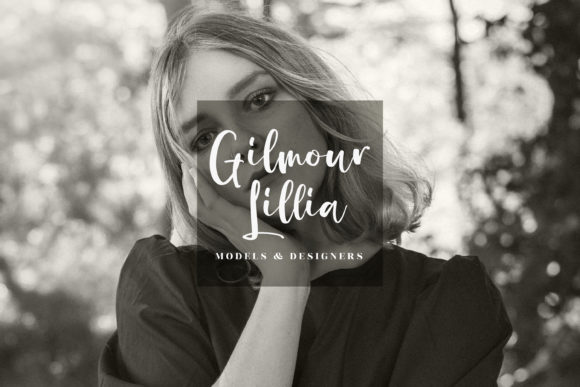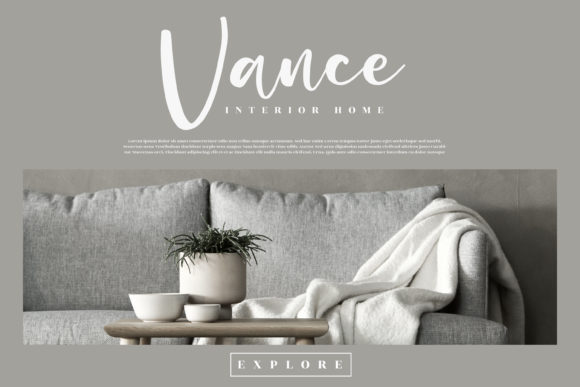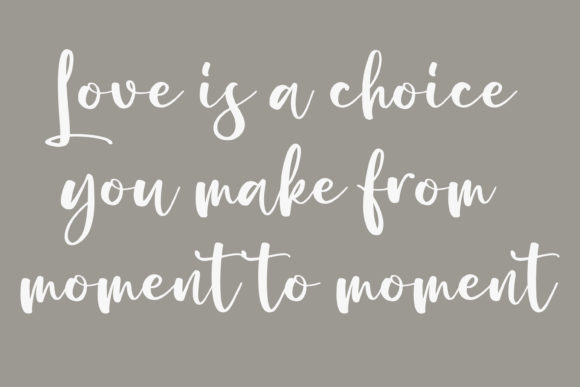
Introduction to Beauty Amalia Font
Beauty Amalia is a lovely script font featuring charming, playful characters that seem to dance along the baseline.
Key Features of Beauty Amalia Font